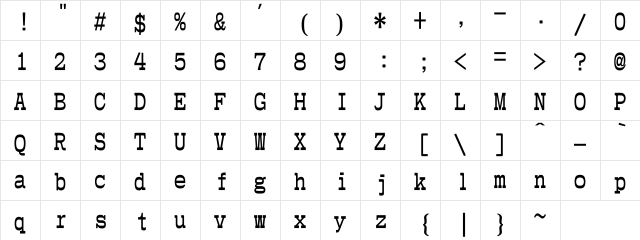
DFYaYiW6U-B5 Regular
Design Context for DFYaYiW6U-B5 Typeface
DFYaYiW6U-B5 is a composed and adaptable typeface that performs quietly and consistently across a wide range of design contexts.
Pro Tip: Use DFYaYiW6U-B5 in both headline and body roles to test its range before committing to a single application.